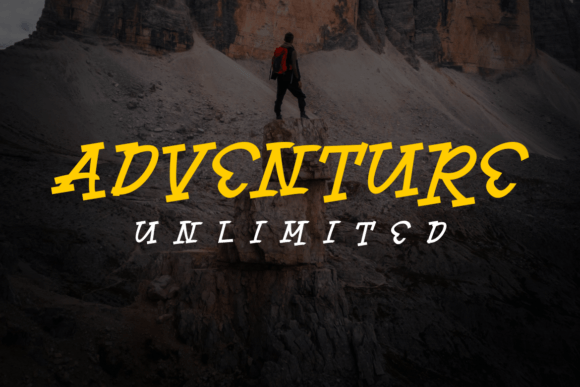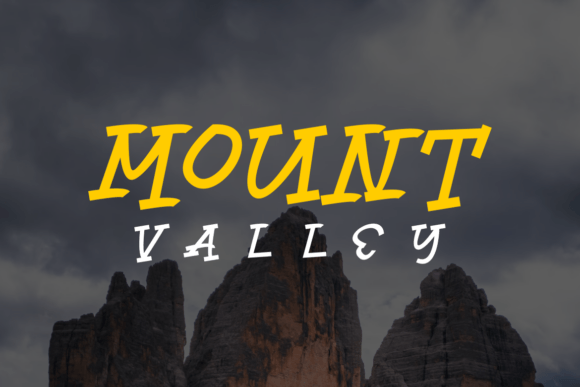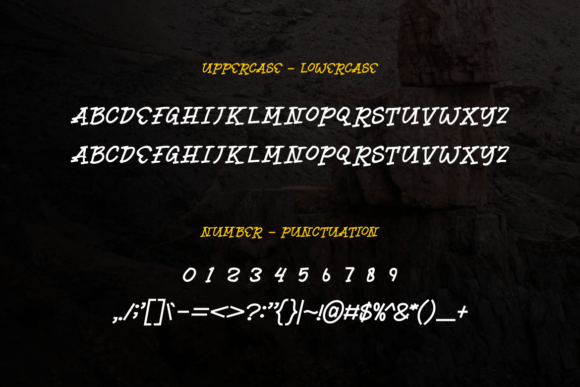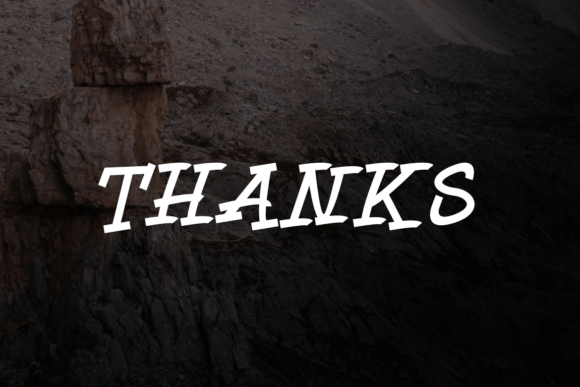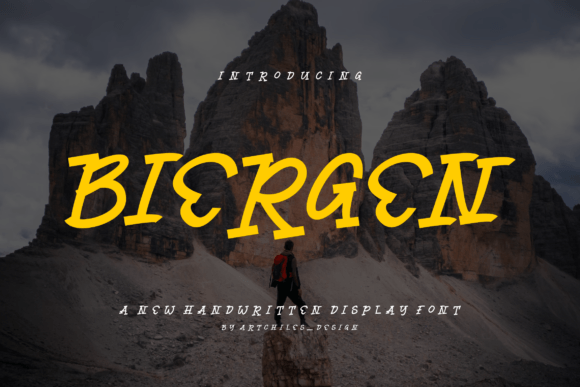
The Biergen Font: A Bold, Handwritten Display Font for Outdoor Enthusiasts
Are you a designer or crafter looking for a font that captures the essence of adventure and the great outdoors? Look no further than the Biergen Font, a bold, handwritten display font that exudes a rustic and adventurous vibe. Perfect for outdoor-themed projects, apparel branding, logos, or posters, this font is sure to evoke a sense of exploration and rugged charm while maintaining a stylish edge.
What is the Biergen Font?
The Biergen Font is a unique and eye-catching font that is perfect for designers and crafters who want to add a touch of personality to their projects. With its bold, handwritten style, this font is sure to stand out from the crowd and grab attention. The font’s rustic and adventurous vibe makes it perfect for outdoor-themed projects, such as camping, hiking, or outdoor gear branding.
Key Features of the Biergen Font
So, what makes the Biergen Font so special? Here are some of its key features:
- Bold and Handwritten Style: The Biergen Font has a bold, handwritten style that gives it a personal and unique touch.
- Rustic and Adventurous Vibe: The font’s rustic and adventurous vibe makes it perfect for outdoor-themed projects and branding.
- Highly Legible: Despite its bold style, the Biergen Font is highly legible, making it perfect for use in a variety of applications, from logos and posters to apparel and packaging.
- Versatile: The Biergen Font is incredibly versatile, making it perfect for use in a wide range of projects, from outdoor gear branding to craft beer packaging.
Use Cases for the Biergen Font
So, what can you use the Biergen Font for? Here are some ideas to get you started:
- Outdoor Gear Branding: The Biergen Font is perfect for outdoor gear branding, such as logos, packaging, and marketing materials.
- Apparel Branding: The font’s bold and adventurous style makes it perfect for apparel branding, such as t-shirts, hats, and jackets.
- Posters and Flyers: The Biergen Font is perfect for creating eye-catching posters and flyers for outdoor events, such as music festivals, hiking events, or camping trips.
- Logos and Icons: The font’s unique style makes it perfect for use in logos and icons, adding a touch of personality to your brand.
Tips for Using the Biergen Font
Here are some tips for using the Biergen Font in your projects:
- Use it Boldly: The Biergen Font is designed to make a statement, so don’t be afraid to use it boldly and prominently in your projects.
- Experiment with Colors: The font’s rustic and adventurous vibe makes it perfect for use with earthy colors, such as greens, browns, and tans.
- Pair it with Other Fonts: The Biergen Font pairs well with other fonts, such as sans-serif fonts or script fonts, to create a unique and eye-catching look.
In conclusion, the Biergen Font is a bold, handwritten display font that is perfect for outdoor-themed projects, apparel branding, logos, or posters. With its rustic and adventurous vibe, this font is sure to evoke a sense of exploration and rugged charm while maintaining a stylish edge. Whether you’re a designer or crafter, the Biergen Font is a great addition to your font library.